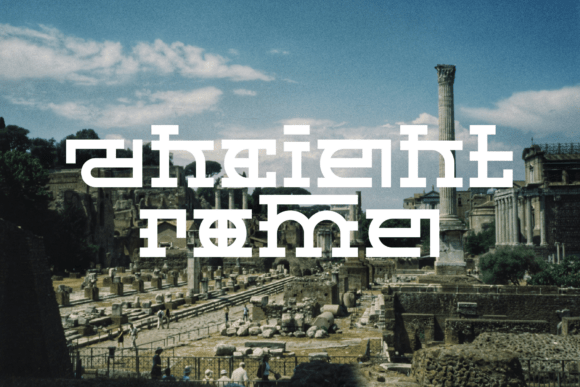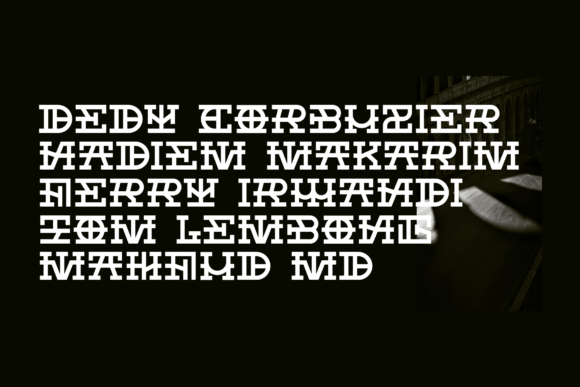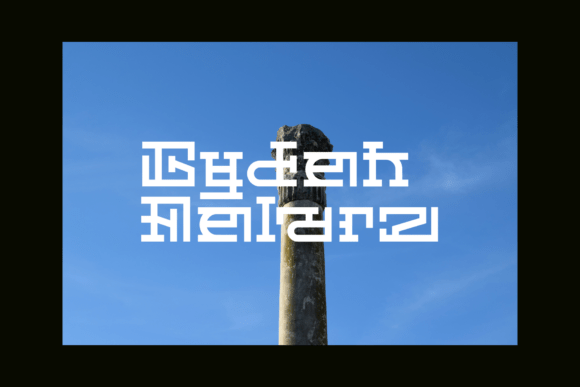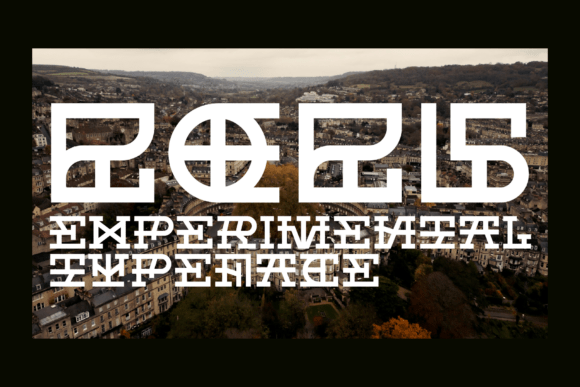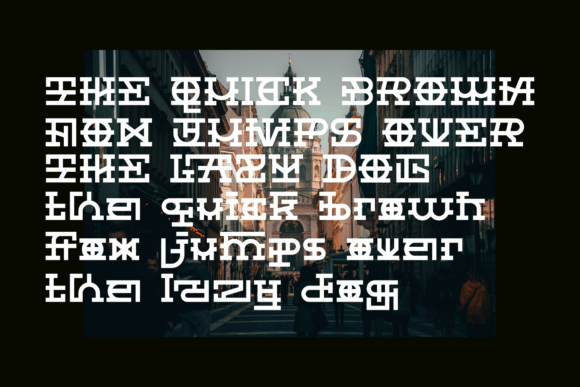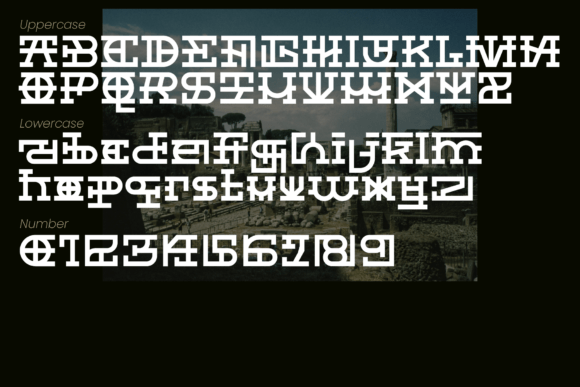
Introduction to Felarium Font Font
Fonts play a crucial role in design, and the Felarium Font font is a typeface that brings both character and versatility to any project. Whether you’re working on a branding project, a website, or a print design, the Felarium Font font offers a unique style that can elevate your work.
Felarium Romans is a distinctive Roman-style experimental decorative display font inspired by classical architecture and timeless serif traditions.
Combining historical elegance with modern structural clarity, this typeface delivers a bold yet refined presence suitable for contemporary design projects Its strong horizontal strokes, balanced proportions, and subtle classical influence make Felarium Romans ideal for editorial layouts, branding, luxury packaging, posters, book covers, cultural projects, and cinematic titles.
Key Features of Felarium Font Font
Why Choose Felarium Font Font?
The Felarium Font font is more than just a typeface – it’s a design tool that helps you communicate your message with style and clarity. Its unique character set and versatile design make it suitable for a wide range of applications, from elegant invitations to bold headlines.
With its carefully crafted letterforms and balanced proportions, the Felarium Font font ensures readability and visual appeal across all mediums.
What makes Felarium Font font special?
The Felarium Font font stands out with its unique design, exceptional readability, and versatility across various design applications.